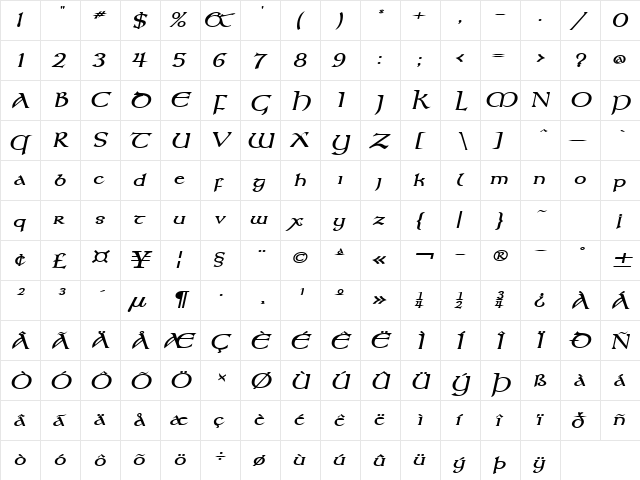
Kelt Wide BoldItalic Font Preview
Design Context for Kelt Wide Typeface
Kelt Wide takes a measured approach to typography — its balanced proportions and neutral character make it a reliable workhorse for both digital and print work. The slanted form adds forward momentum and visual energy. The heavy weight commands attention and anchors typographic hierarchies.
Pro Tip: Try Kelt Wide for annotation and caption copy alongside an upright companion — the contrast in angle creates a dynamic but ordered typographic system.